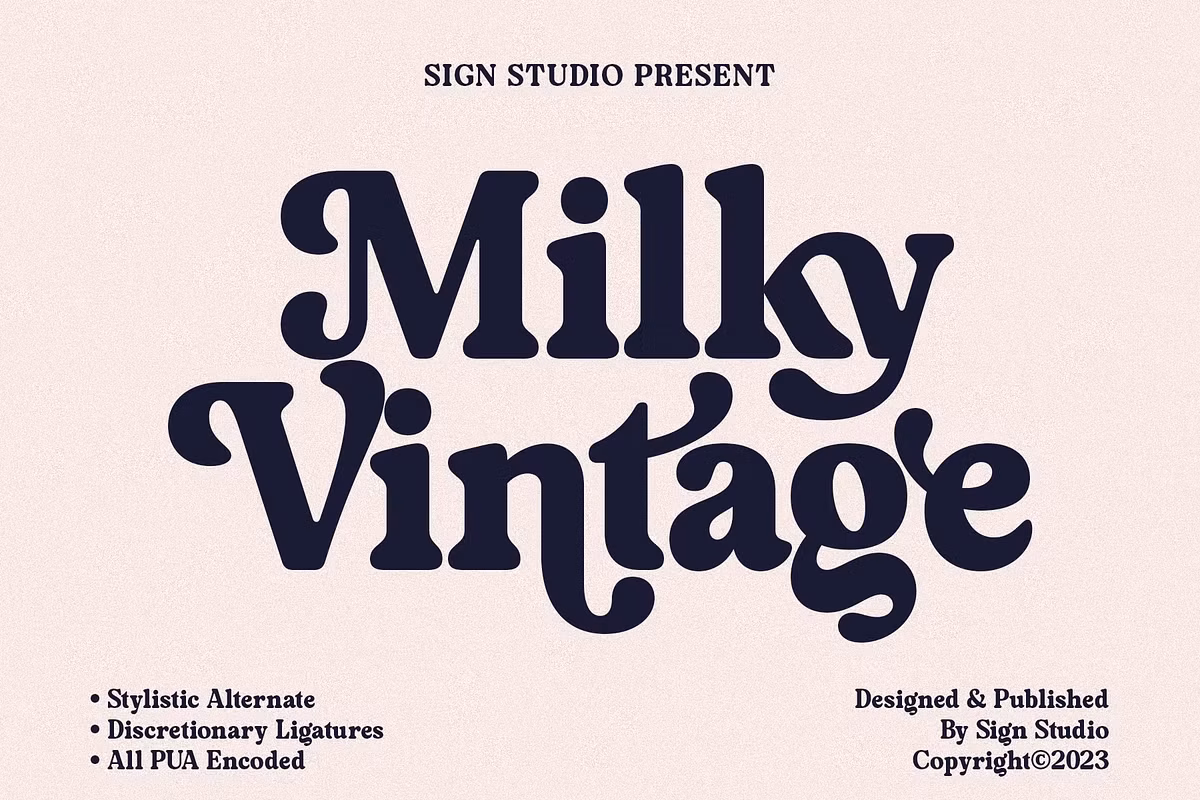
Milky Vintage Font Free Download is a charming retro-inspired typeface that captures the essence of nostalgic design with a playful twist. Its smooth curves, soft edges, and vintage aesthetic make it perfect for logos, packaging, café menus, t-shirt designs, and any project that needs a touch of old-school flair.
With a balanced mix of classic and quirky, Milky Vintage brings personality and warmth to your typography. The font includes a complete set of uppercase and lowercase letters, numbers, and punctuation, making it a versatile choice for both display and decorative uses.
Whether you're working on a throwback poster or a retro-themed brand, Milky Vintage Font Free Download adds character and style effortlessly. Try it out for personal projects and experience the vintage vibe for yourself. For any commercial use, make sure to purchase the appropriate license. Bring a sweet, nostalgic feel to your next design with this delightful vintage font.